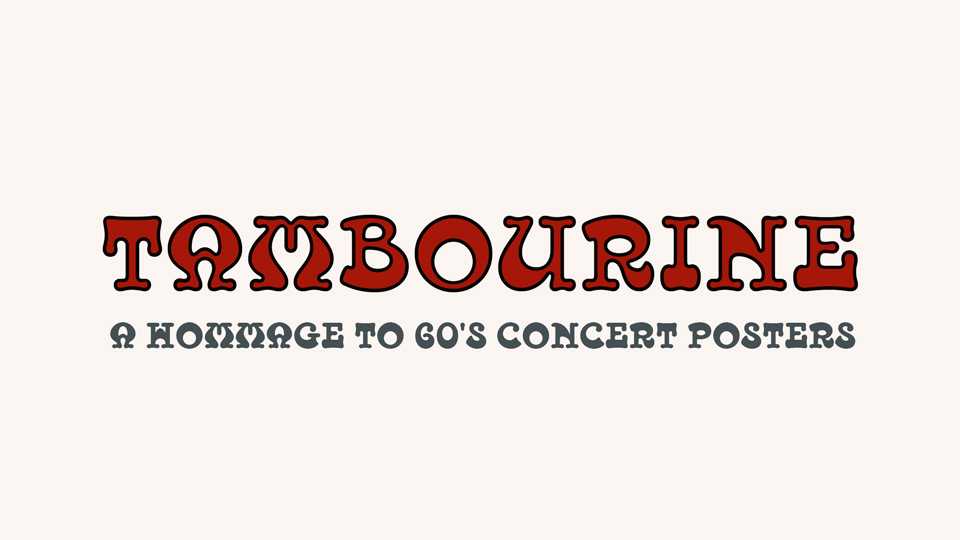
Download Tambourine font, a fancy retro display typeface with fun and playful character, inspired by 60’s concert posters. Tambourine is designed in Regular and Outlined style for fascinating combinations in vintage artworks.